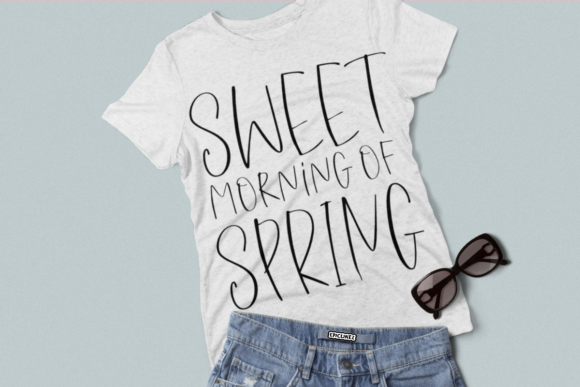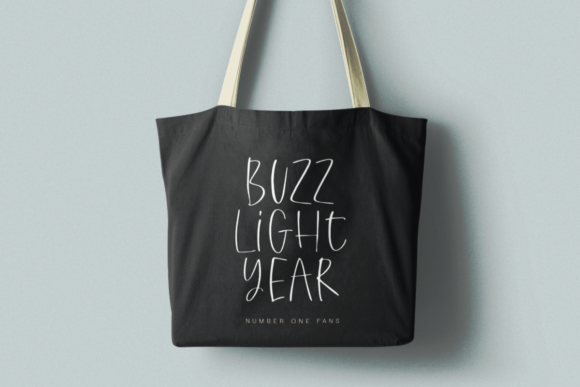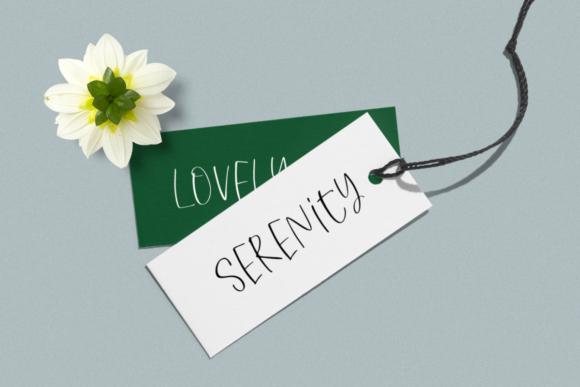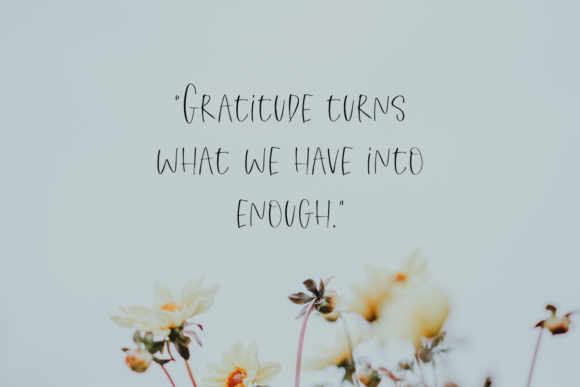
Introducing Countless Blessings Font: The Ultimate Choice for Designers and Crafters
Are you tired of using the same old fonts in your designs? Do you want to add a touch of personality and whimsy to your projects? Look no further than Countless Blessings Font, a fun and casual handwritten font that’s perfect for designers and crafters alike. With its unique blend of rounded characters and flexible style, this font is sure to make your designs stand out from the crowd.
What Makes Countless Blessings Font So Special?
Countless Blessings Font is defined by its all-round characters and flexible style, which gives it a distinctly casual and handwritten feel. This font is perfect for designers who want to add a personal touch to their projects, whether it’s a social media graphic, a blog post, or a craft project. The rounded characters also make it easy to read, even at smaller sizes, making it a great choice for body text or captions.
Key Features of Countless Blessings Font
- Fun and casual handwritten font: Countless Blessings Font is the perfect choice for designers who want to add a touch of personality to their projects.
- All-round characters: The rounded characters in this font make it easy to read and give it a distinctly casual feel.
- Flexible style: This font is versatile and can be used in a variety of design projects, from social media graphics to craft projects.
- Readable and trendy: Countless Blessings Font is the perfect combination of readability and style, making it perfect for designers who want to create trendy and engaging designs.
Countless Blessings Font is perfect for designers and crafters who want to add a personal touch to their projects. Whether you’re creating social media graphics, blog posts, or craft projects, this font is sure to make your designs stand out. Its casual and handwritten feel makes it perfect for:
- Social media graphics: Add a personal touch to your social media graphics with Countless Blessings Font.
- Blog posts: Use this font to add a touch of personality to your blog posts and make them more engaging.
- Craft projects: Countless Blessings Font is perfect for craft projects, such as scrapbooking, card making, and more.
- Invitations and announcements: Use this font to create fun and casual invitations and announcements.
How to Use Countless Blessings Font
- Experiment with different sizes: Countless Blessings Font looks great at a variety of sizes, from small captions to large headings.
- Pair it with other fonts: Try pairing Countless Blessings Font with other fonts to create a unique and interesting look.
- Use it for body text: This font is easy to read, making it perfect for body text or captions.
Countless Blessings Font is a fun and casual handwritten font that’s perfect for designers and crafters alike. With its unique blend of rounded characters and flexible style, this font is sure to make your designs stand out from the crowd. Whether you’re creating social media graphics, blog posts, or craft projects, Countless Blessings Font is the perfect choice. So why wait? Download Countless Blessings Font today and start creating trendy and engaging designs!